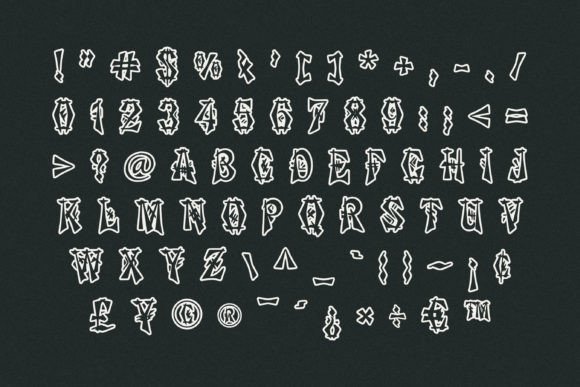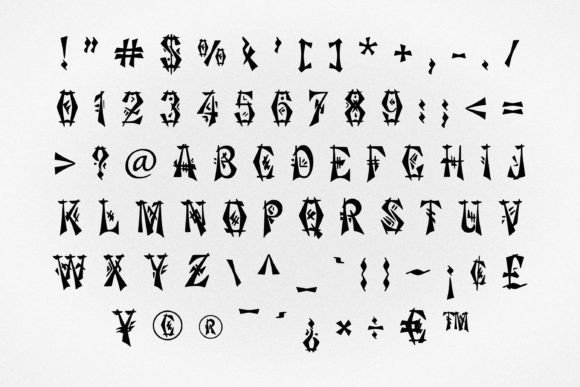
Introduction to Hibachi Font
Hibachi is a unique, Japanese-style decorative display font.
Fall in love with its distinct and interesting vibe and bring your projects to the highest levels .
Key Features of Hibachi Font